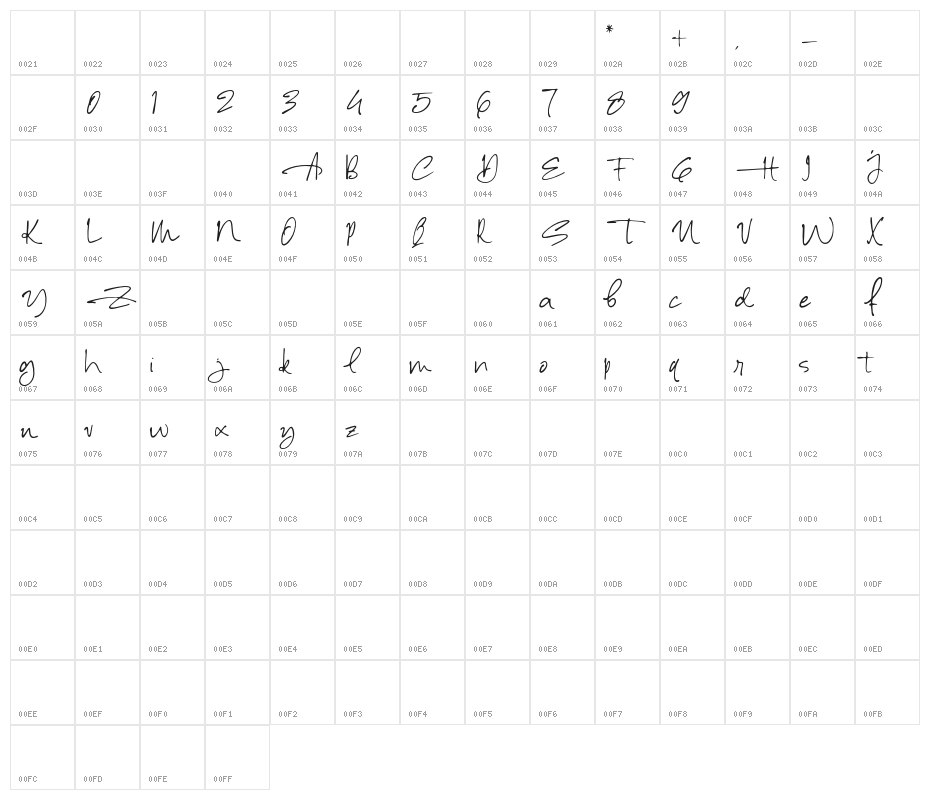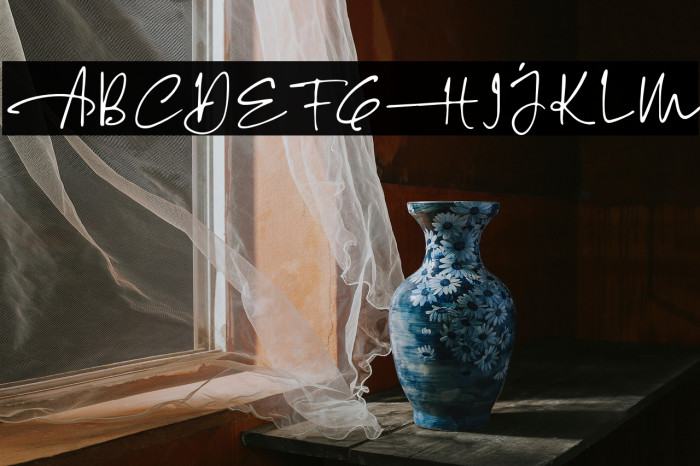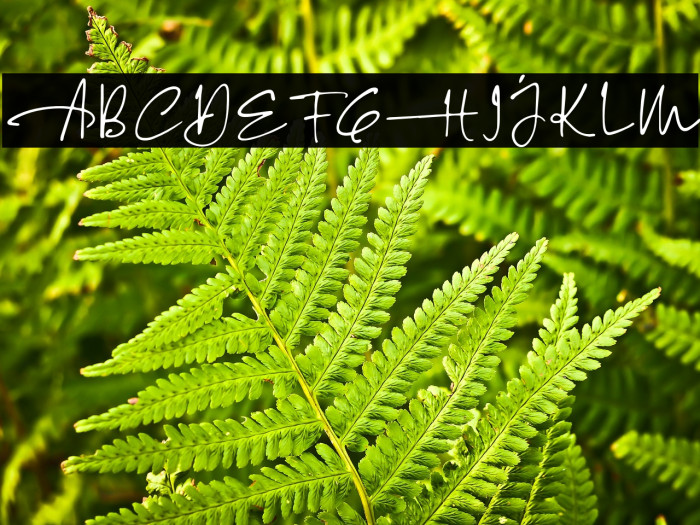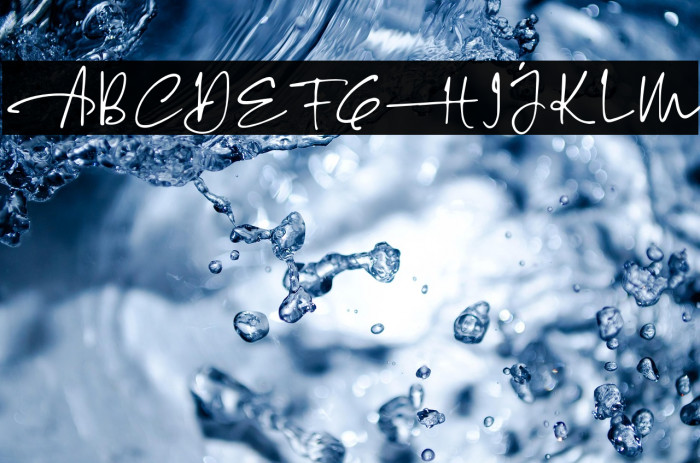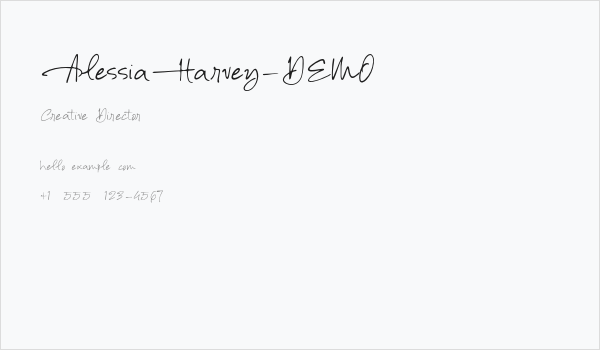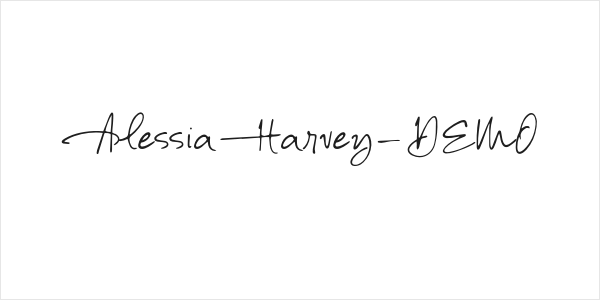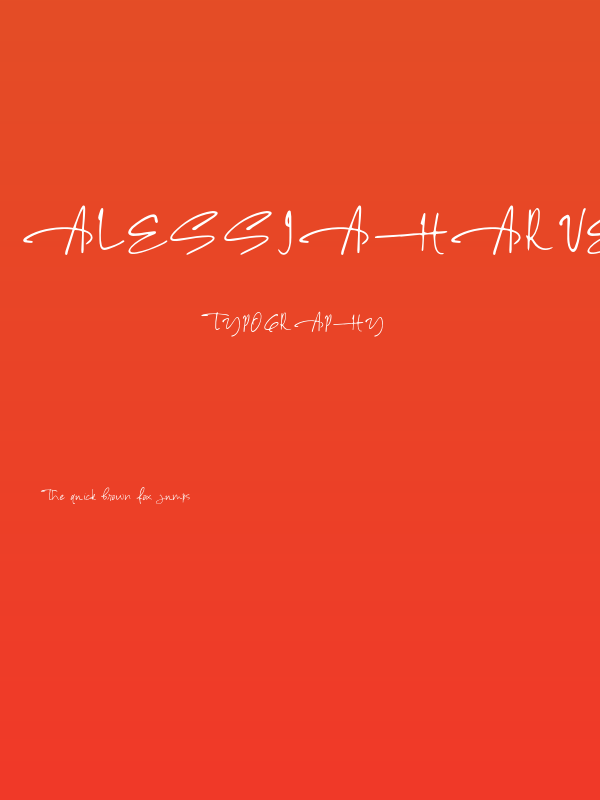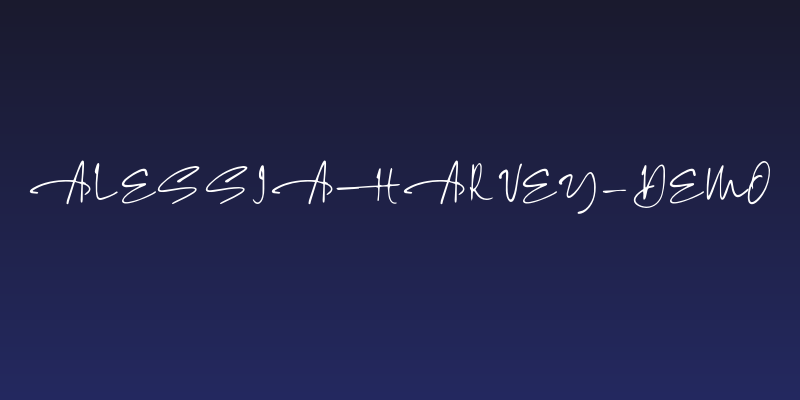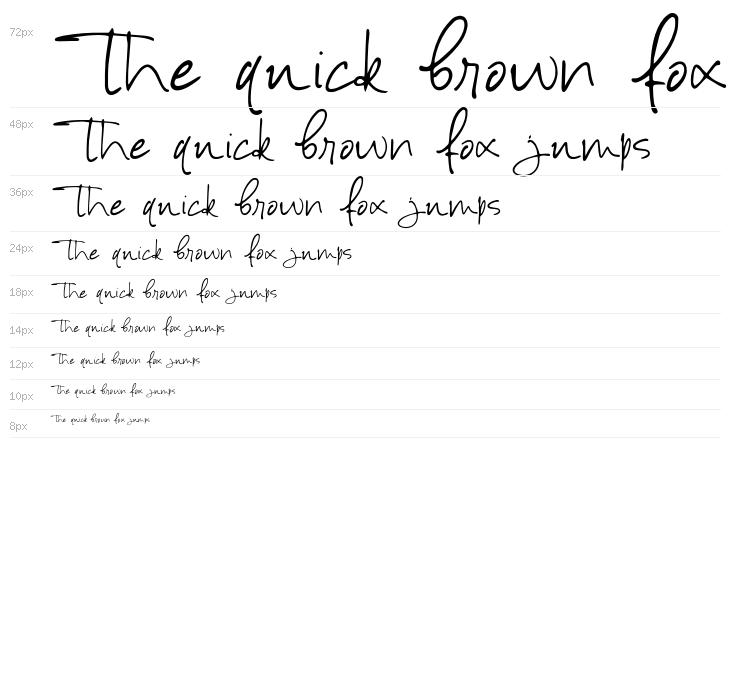
AlessiaHarvey-DEMO Font
AlessiaHarvey-DEMO Description
This font exudes a lively and dynamic energy, characterized by its flowing, cursive style. The letters are crafted with a natural, handwritten feel, featuring smooth curves and elegant loops. The uppercase letters maintain a consistent height, while the lowercase letters vary in size, adding to the font's organic appearance. The numerals and special characters are designed to complement the overall style, with a playful yet sophisticated touch. The strokes are moderately thick, providing a balanced contrast that enhances readability without sacrificing the font's artistic flair.